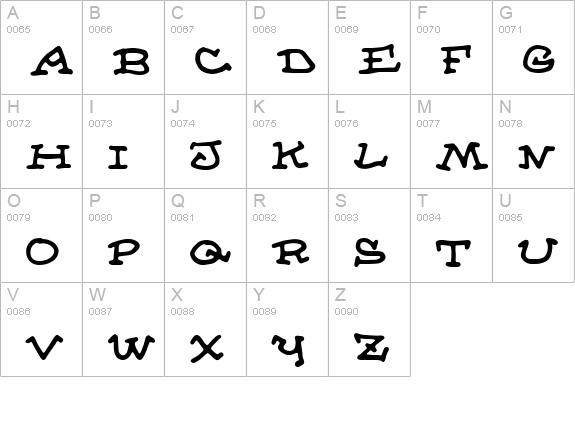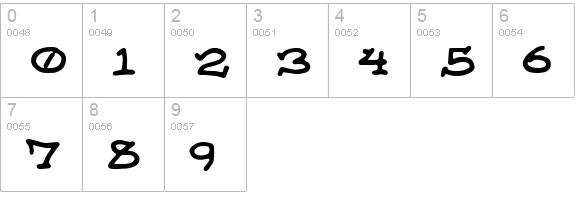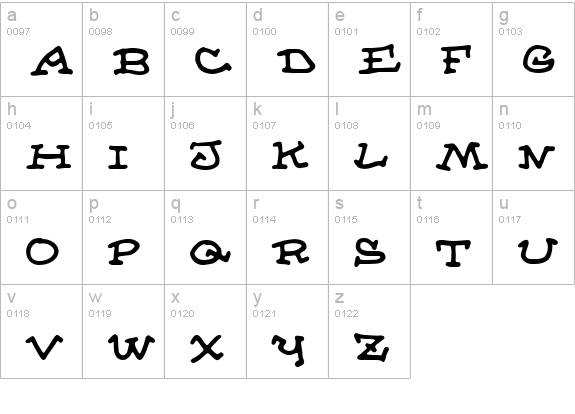
Almanac of the Apprentice Font Details
The Almanac of the Apprentice font is a unique and versatile typeface that combines elegance and readability. With its intricate detailing and classic style, this font is perfect for adding a touch of sophistication to any design project. Whether you're creating invitations, posters, or branding materials, Almanac of the Apprentice will make your text stand out beautifully. What sets this font apart is not only its stunning aesthetics, but also its accessibility. As a free font, Almanac of the Apprentice is readily available for download at FontsMarket.com. This means that you can easily incorporate this elegant typeface into your projects without any cost. Don't miss out on the opportunity to elevate your designs with the timeless charm of Almanac of the Apprentice font. Download it today and let your creativity shine!